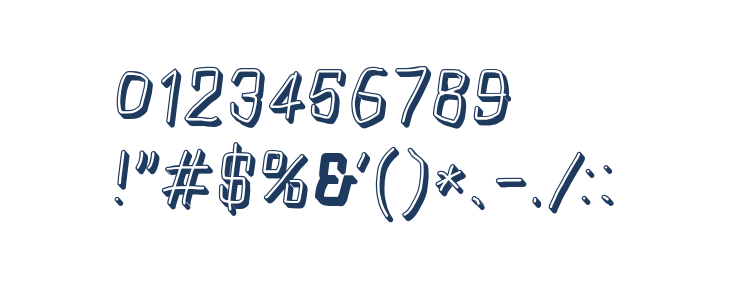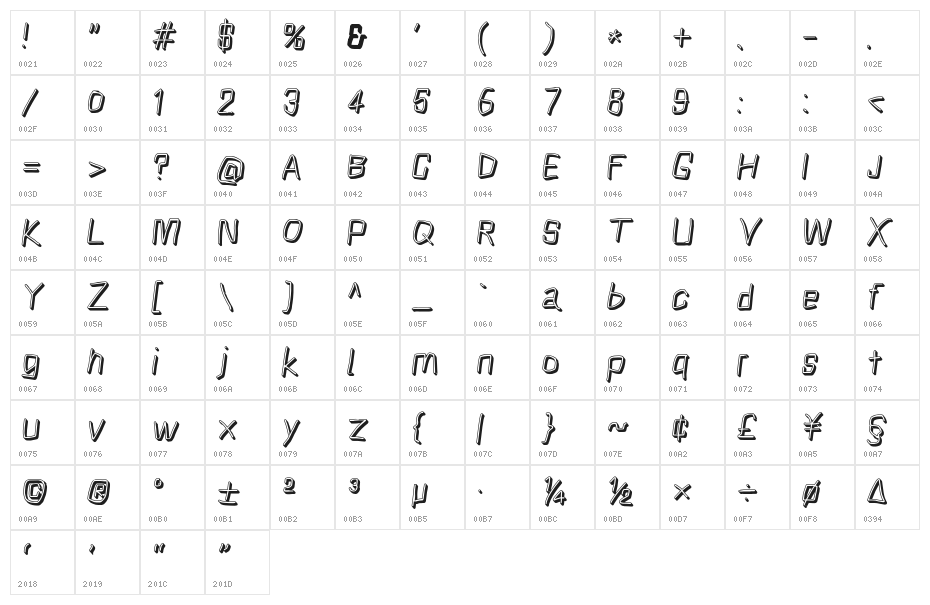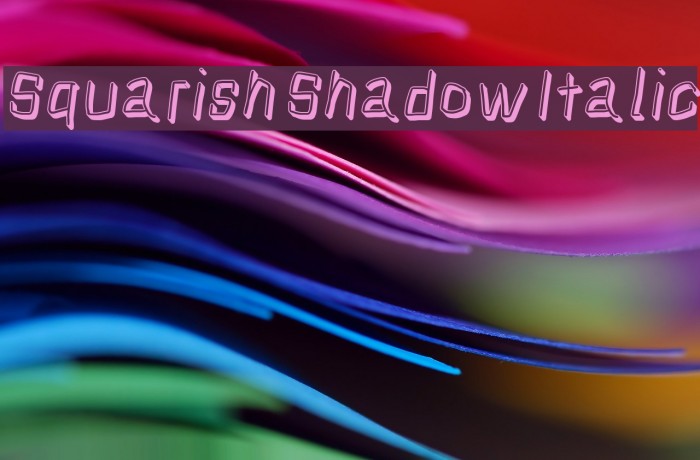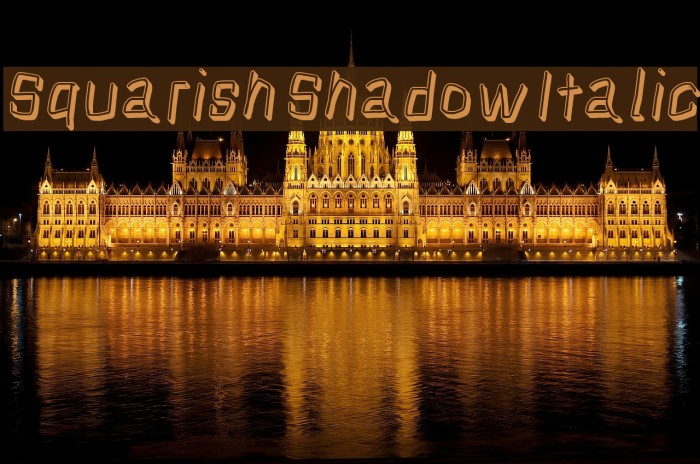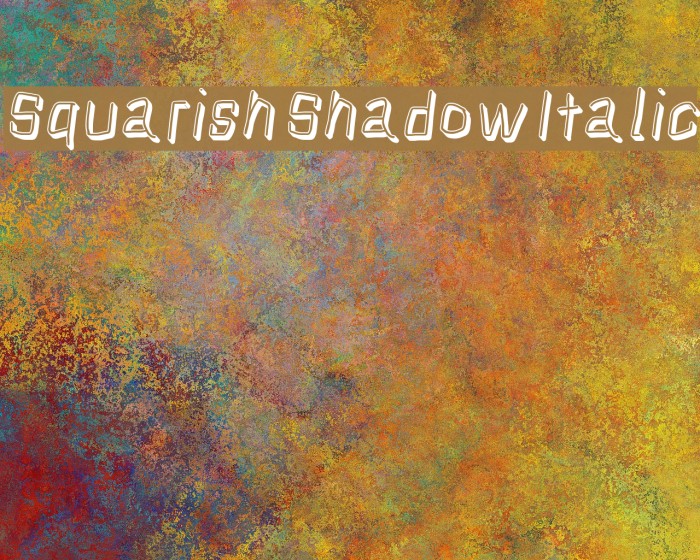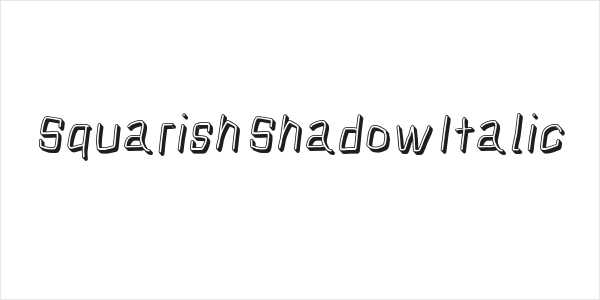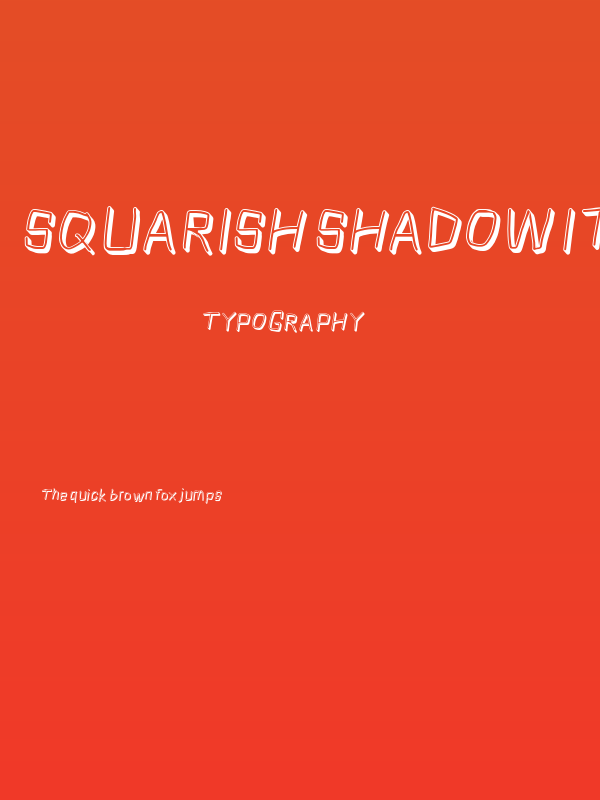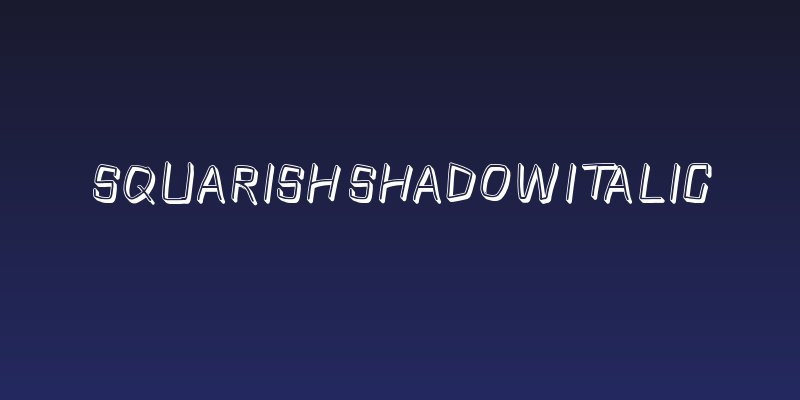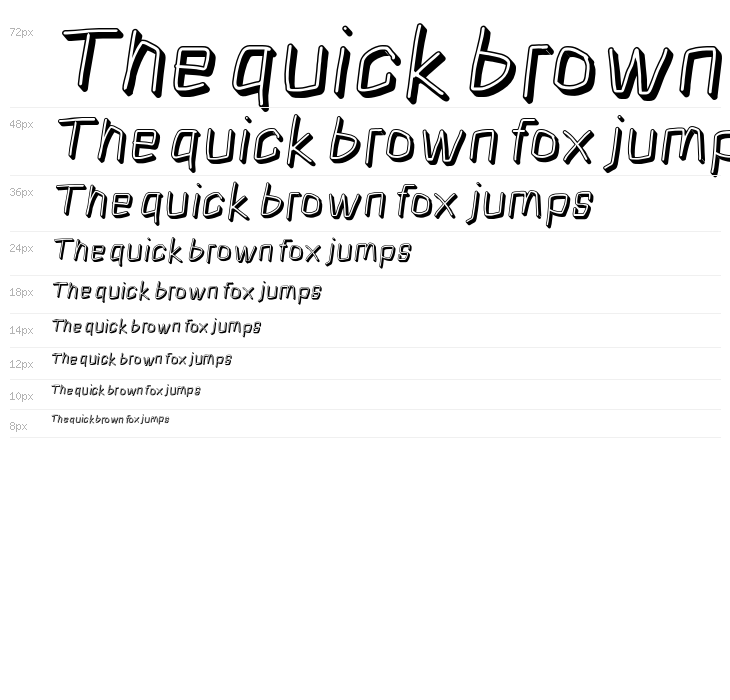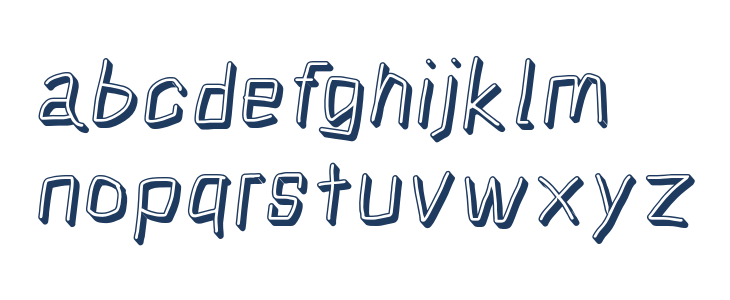
Squarish Shadow Italic Font
Squarish Shadow Italic Description
This font features a bold, italicized style with a distinct shadow effect that gives it a three-dimensional appearance. The characters are angular and geometric, with a consistent slant that adds a dynamic feel. The uppercase and lowercase letters maintain a uniform width, while the numbers and special characters follow the same stylistic approach. The shadow effect is prominent, creating a sense of depth and making the text stand out. This font is ideal for projects that require a modern and edgy look, combining both readability and visual interest.